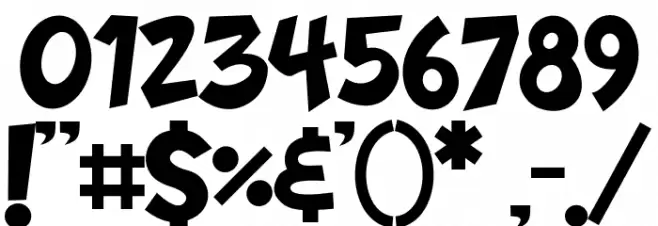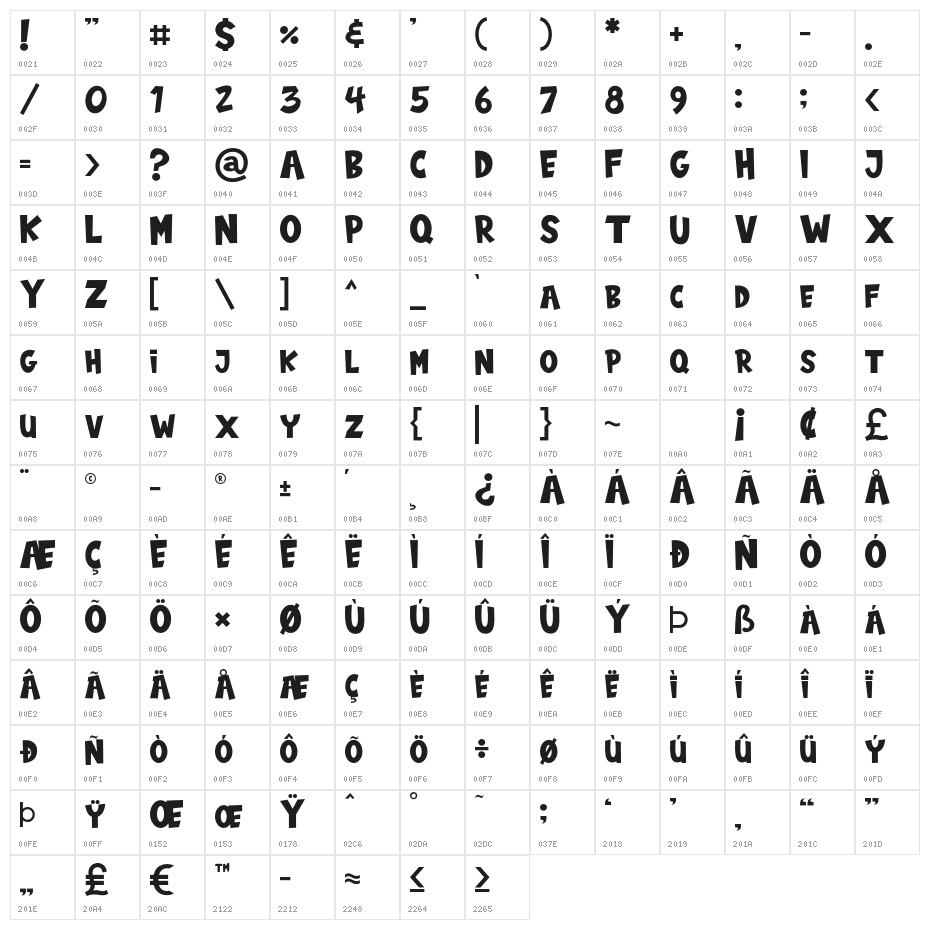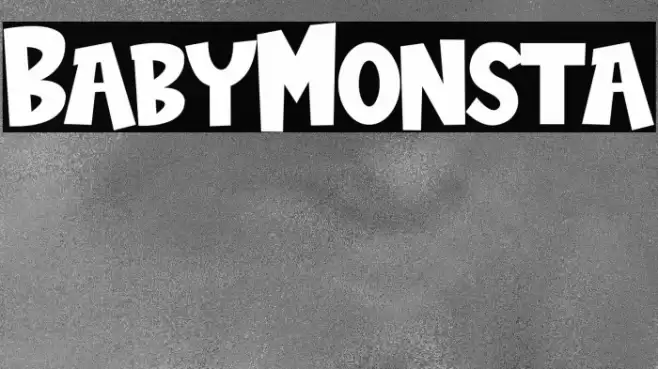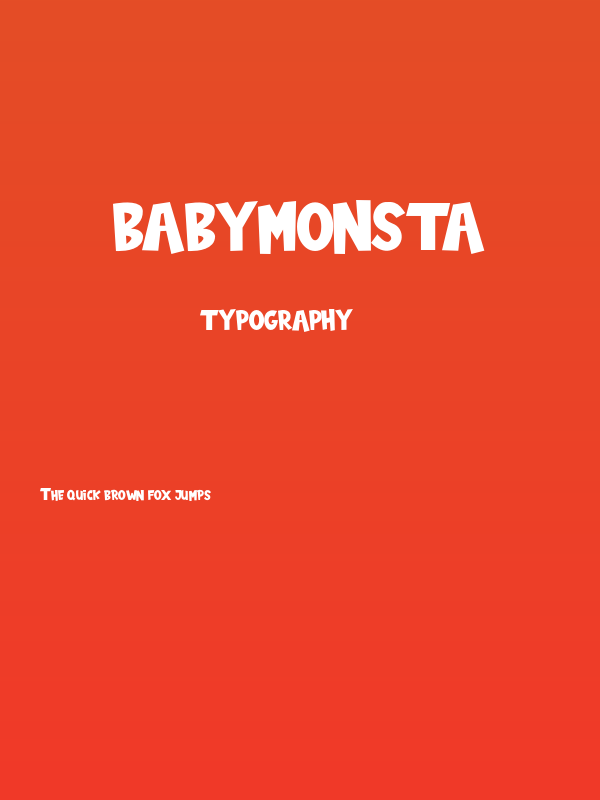
BabyMonsta Font
BabyMonsta Description
This playful and bold font features exaggerated, chunky letters with a whimsical flair. The characters are slightly irregular, giving them a hand-drawn appearance that adds to their charm. The uppercase and lowercase letters maintain a consistent style, with wide, rounded shapes and a slightly uneven baseline. Numbers and special characters follow the same playful design, making them perfect for creative projects. The font's thick strokes and high contrast make it highly legible, even at smaller sizes, while its unique style ensures it stands out in any design.
Overall StylePlayful
Proposed ProjectsIdeal for children's books, playful branding, posters, and merchandise designs.